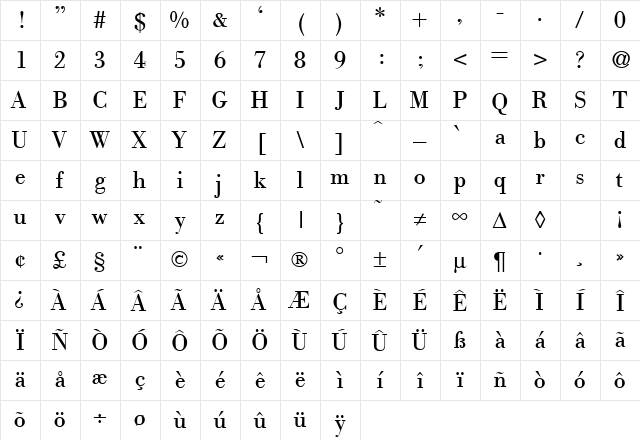
ModernBodoni Regular
ModernBodoni Family
ModernBodoni Regular
Design Context for ModernBodoni
ModernBodoni is a composed and adaptable typeface that performs quietly and consistently across a wide range of design contexts.